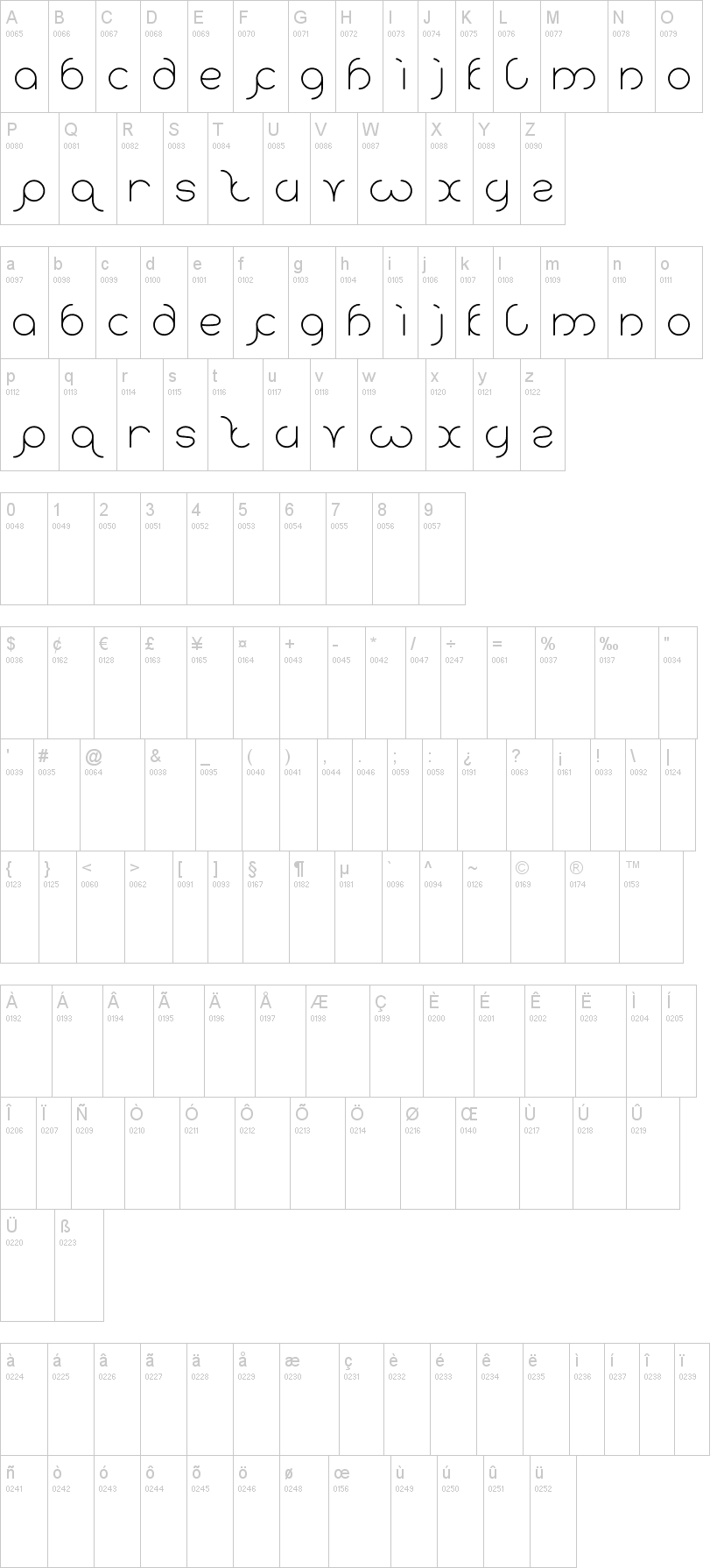
Шрифт Karitza
there is a little love i hide the shape is high and low in type, i made this for karitza, she know what i know "love" and she invite me to typoland, it is the place where she belong, i feel happy for her